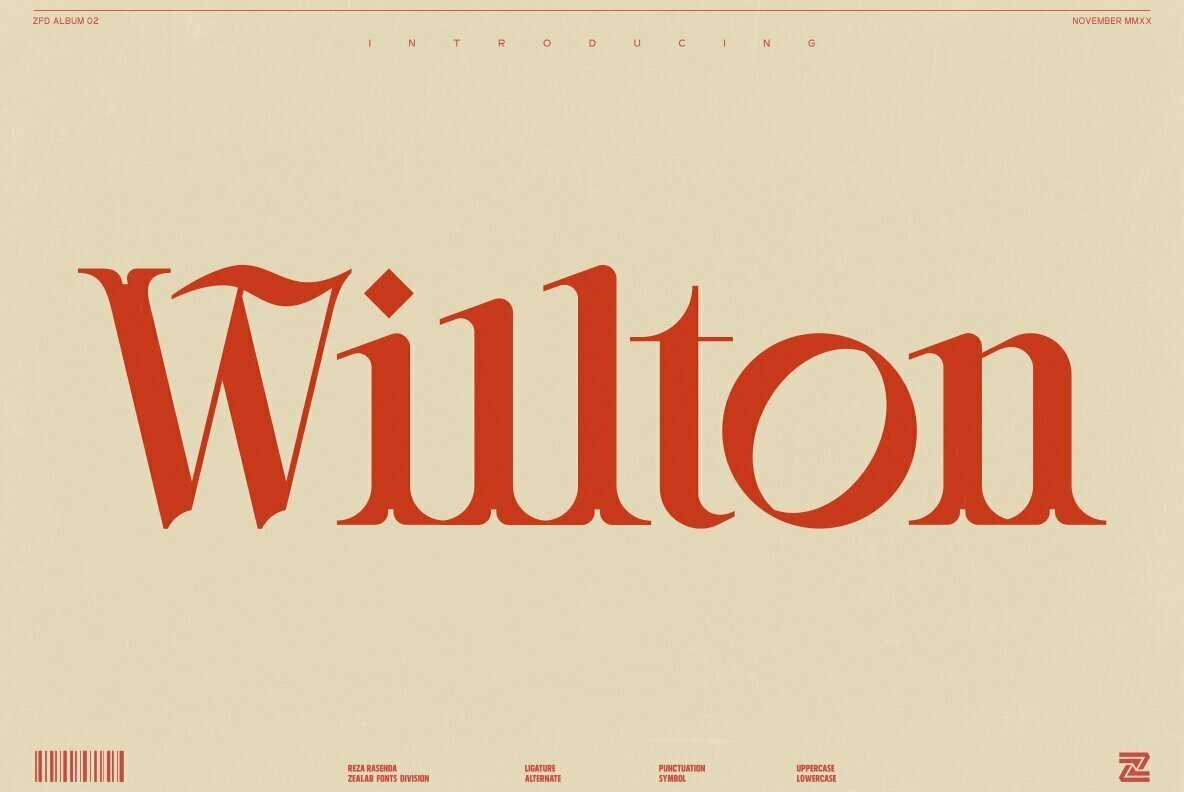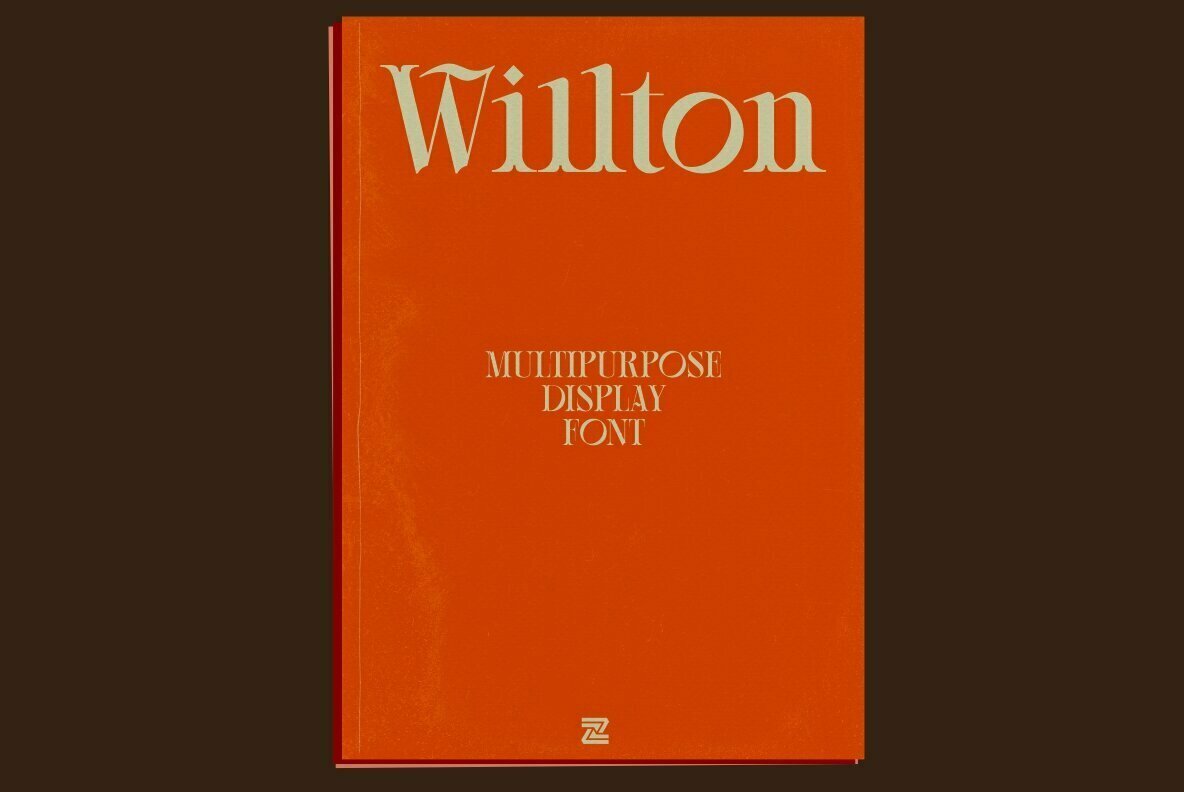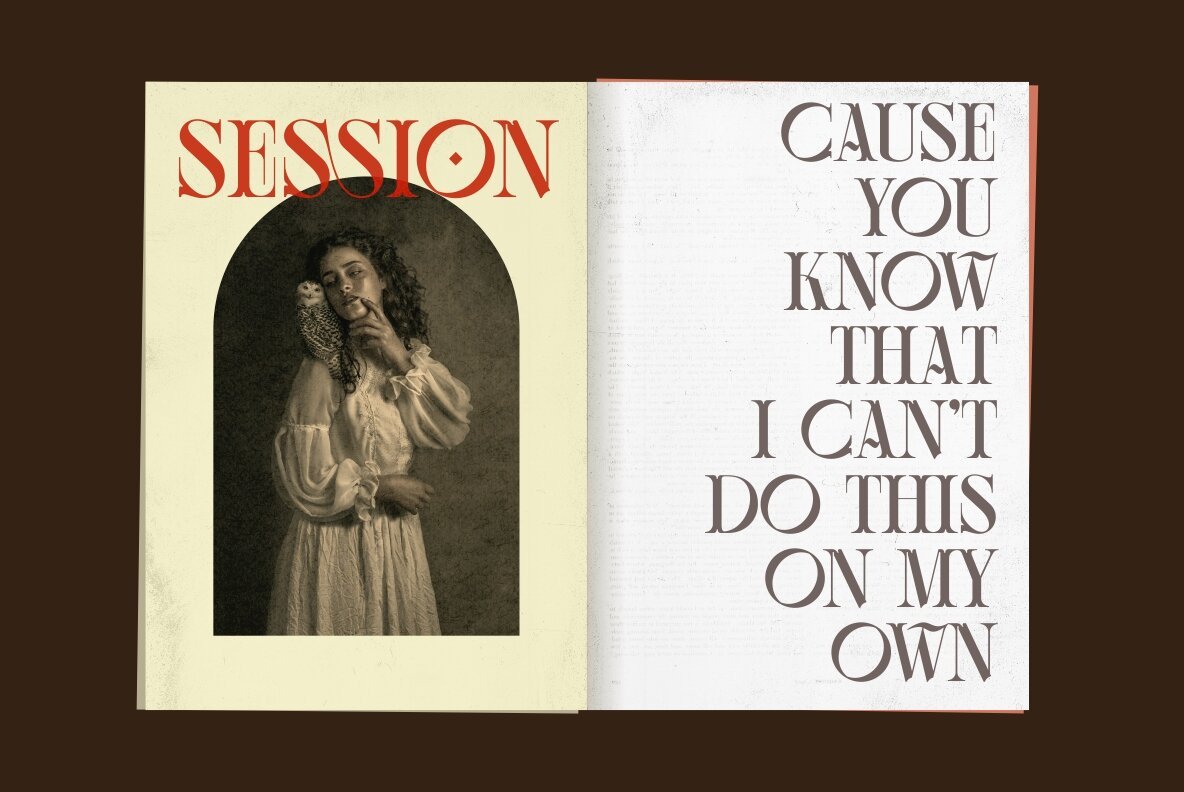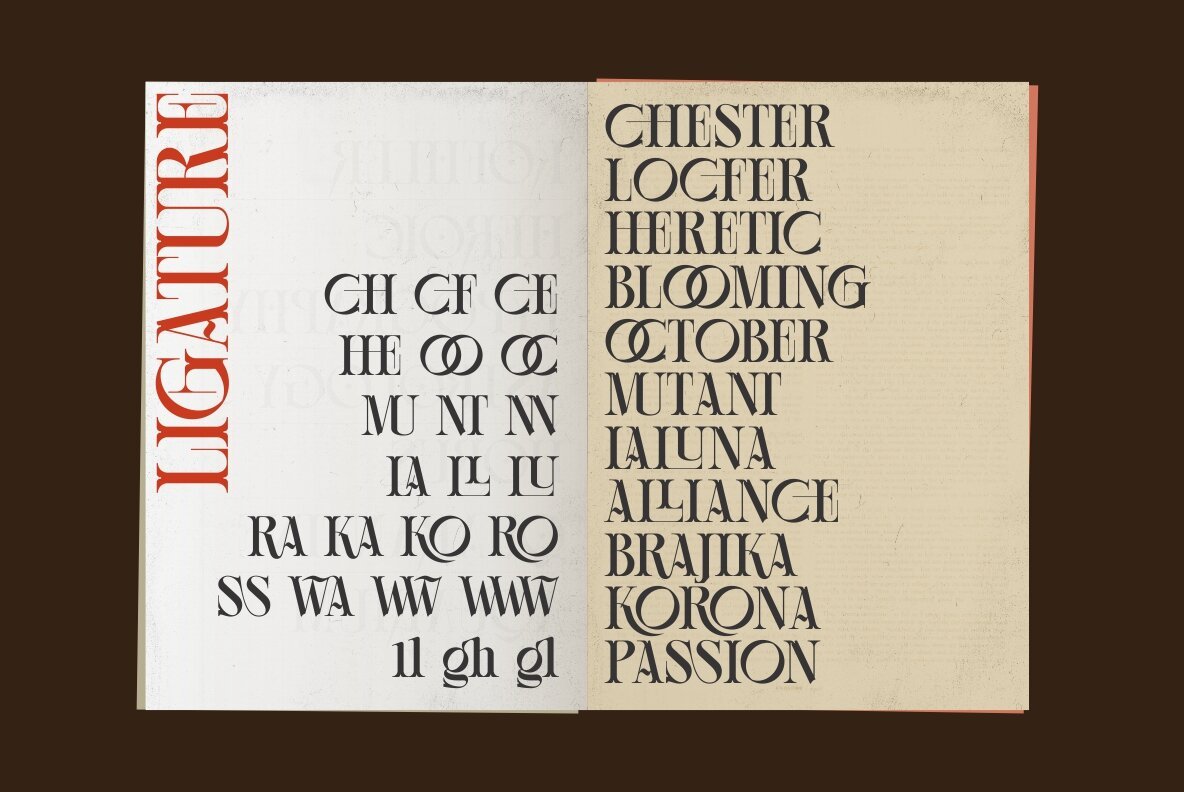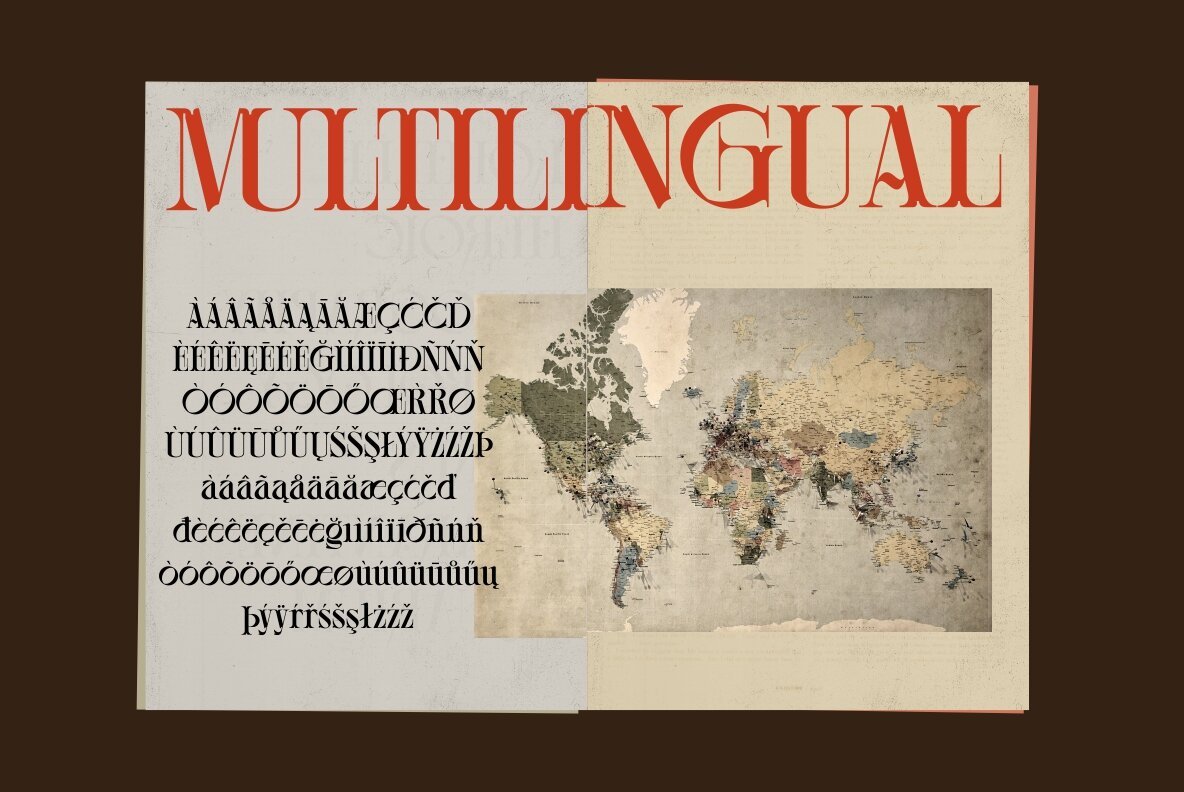
Willton is a versatile, modern and elegant sans serif font. Designed by Reza Rasenda. It has a unique style with stylistic, alternates, ligatures and supports multilingual languages.
Create unique & beautiful logotype, use it as an elegant solution for your next magazine layout, or choose Willton for any graphics that require a sleek look with a elegant flair.